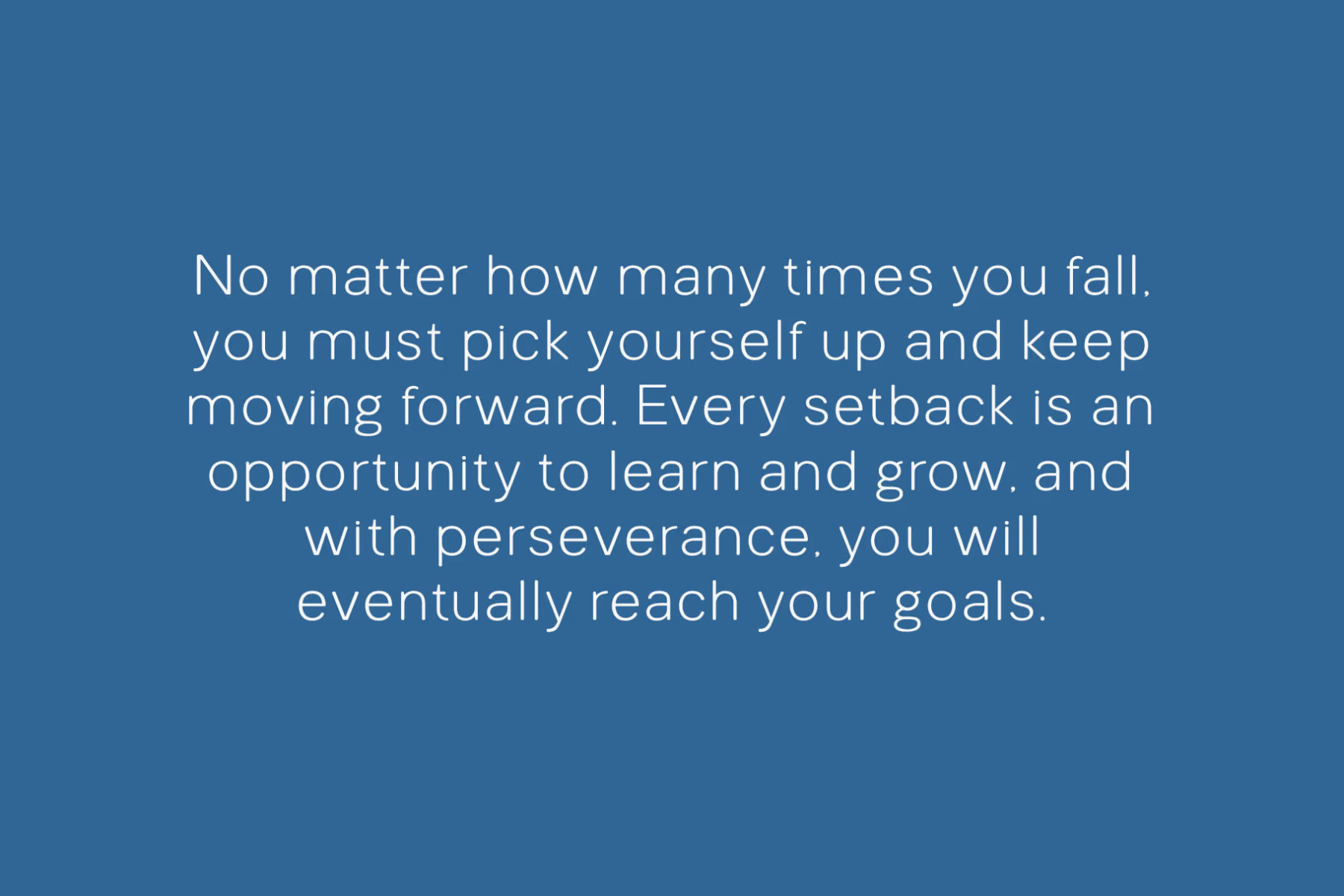
Shega Font
Shega is a high-quality sans serif font designed by Typeformers, available for free download for personal use. The free version includes both uppercase and lowercase letters, along with a selection of special characters.
With its clean and modern design, Shega is best suited for display purposes such as headings, logos, branding, magazines, product packaging, and invitations.
Shega Sans Serif Font